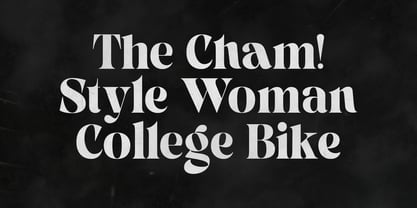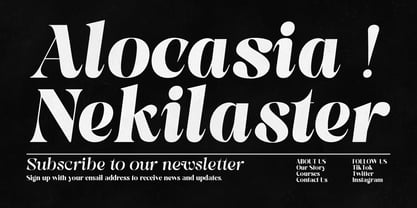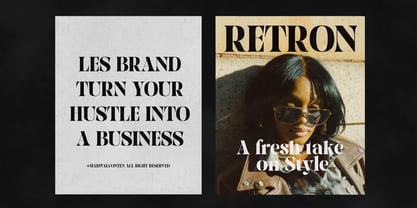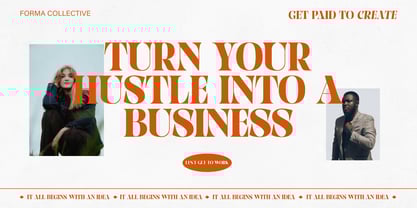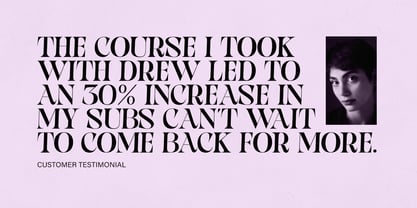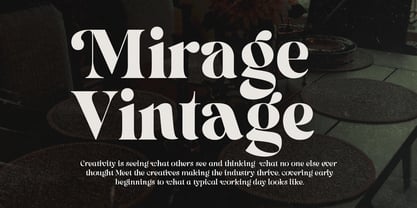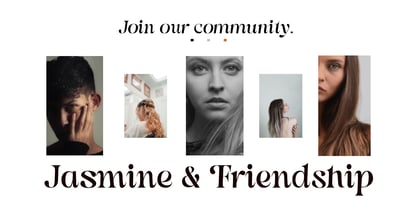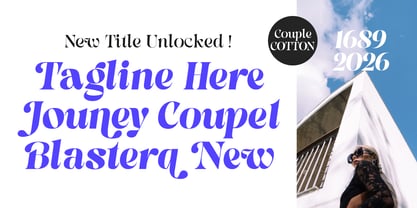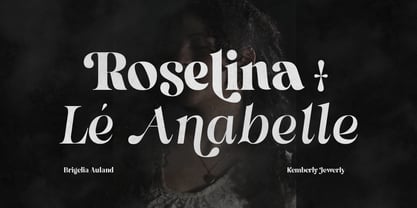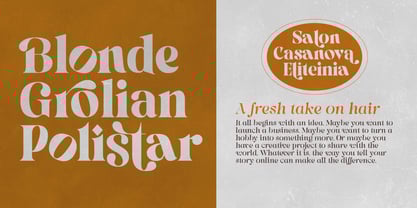
Pronela
by Fontastic Lab
The Pronela Font Family was designed by Bebby Lutfitharina and published by Fontastic Lab. Pronela contains 6 styles and family package options.
Pronela is a bold and straightforward interpretation of serif characters, full of personality. It blends classic Gothic roots with a simple, classy touch that's both playful and dynamic. With its playful curves and simple structure, this typeface instantly adds a touch of elegance to your designs without losing its clarity or appeal. Perfect for branding, posters, packaging, and editorial work that requires a fresh touch. You'll get three different character fonts in one family, providing great inspiration for combining them for design purposes, etc.